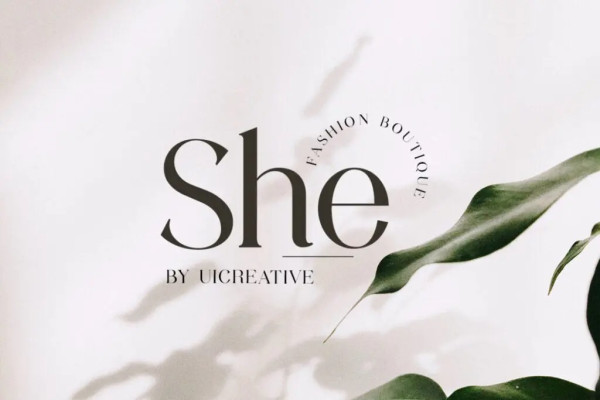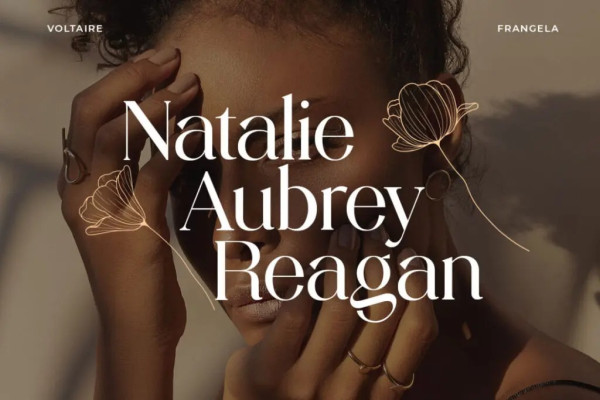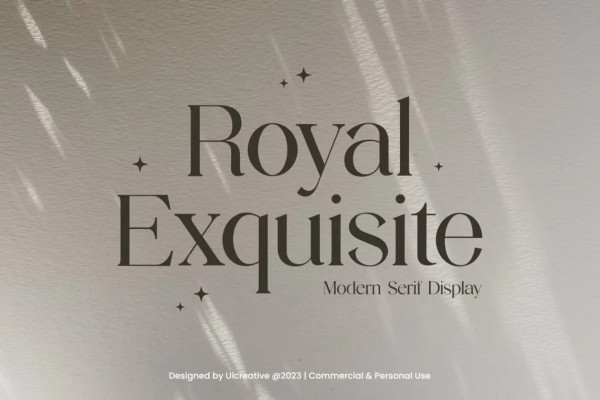
Royal Exquisite Font
Royal Exquisite Font – Modern Serif Font. The modern display font feels beautiful classy, elegant, and stylish. This font is ideally suited for a wide variety of projects, such as signature, stationery, logo, wedding, typography quotes, magazine or book covers, website headers, branding, and more. Also, fashion-related branding or editorial design displays both masculine and feminine qualities.